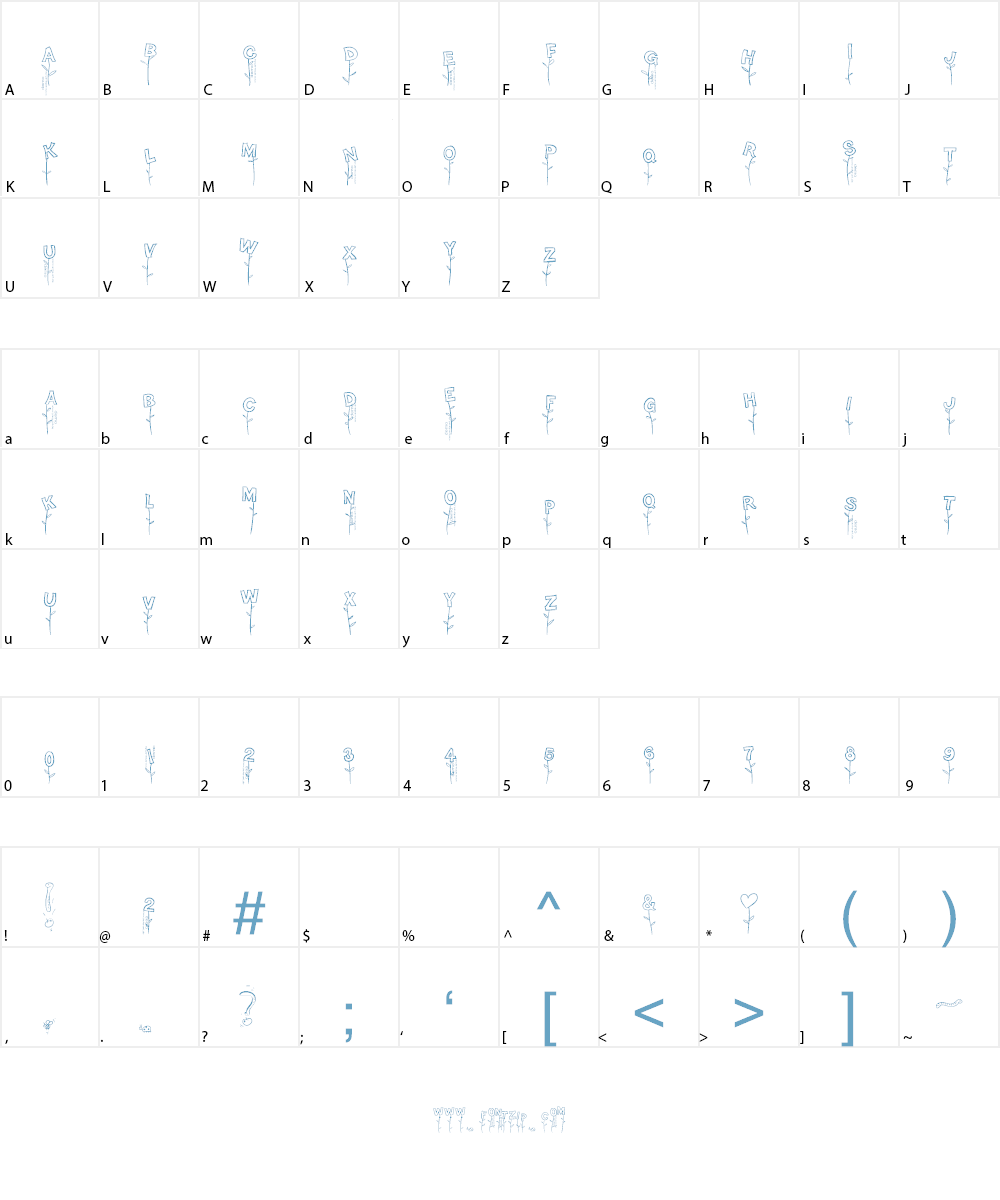
A hand-drawn font with the letters sprouting happily into the sunshine :)
Use it at larger sizes, mixing upper and lower case letters to adjust the look.